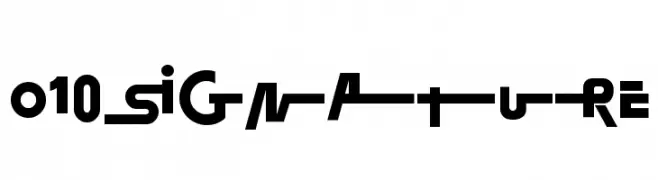
A bold, angular font with sharp edges and dynamic strokes, ideal for impactful designs.
A bold, geometric font with a futuristic and industrial design.